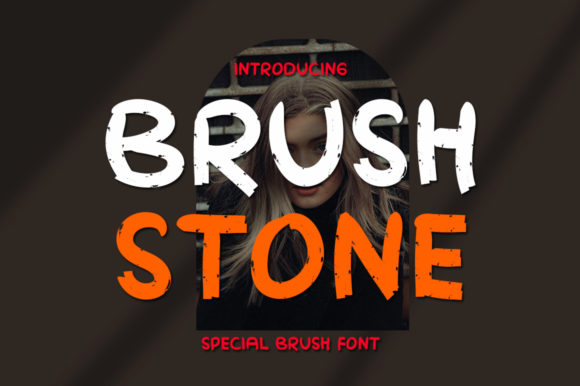
The Brush Stone Font: A Fresh Take on Display Typography
I’ll never forget the time I was working on a branding project for a trendy new coffee shop. I had the logo design nailed, but I was struggling to find the perfect font to pair with it. That’s when I stumbled upon Brush Stone, a fun and adaptable display font that instantly elevated my design. In this article, I’ll share my experience with Brush Stone, its features, and how to make the most of it in your designs.
A First Impression: What I Love About Brush Stone
Brush Stone is a fresh, clean, and original font that can add a touch of personality to any project. Here are some things I love about it:
- ✨ Unique and quirky feel that’s perfect for creative projects
- ✅ Highly legible, even at smaller sizes
- 💡 Supports multiple languages and OpenType features
- 🎨 Versatile and adaptable to various design styles
An Honest Review: The Not-Perfect-but-Almost Section
No font is perfect, and Brush Stone has a few quirks to be aware of:
- 🤔 Limited suitability for body text due to its display-focused design
- ⚠️ Some characters may not work well in all contexts, requiring manual kerning
Brush Stone was designed with the intention of creating a fresh, modern display font. Inspired by natural stone textures and the softness of brushstrokes, the designer aimed to craft a font that’s both unique and versatile. While the real story behind Brush Stone might be unknown, its design certainly tells a tale of creativity and attention to detail.
| What type of projects is Brush Stone best suited for? | Brush Stone is perfect for creative projects, such as branding, posters, and social media graphics. It’s also suitable for titles, headings, and display text in various designs. |
| Can I use Brush Stone for body text? | While Brush Stone is highly legible, it’s primarily designed for display purposes. For longer body text, consider pairing it with a more traditional font for better readability. |
| Does Brush Stone support OpenType features? | Yes, Brush Stone supports OpenType features, including ligatures, stylistic alternates, and more. These features can add a touch of personality to your text. |
| Is Brush Stone suitable for formal designs? | Absolutely! Brush Stone’s fresh and clean design makes it suitable for both formal and informal projects. Its versatility allows it to adapt to various design styles. |